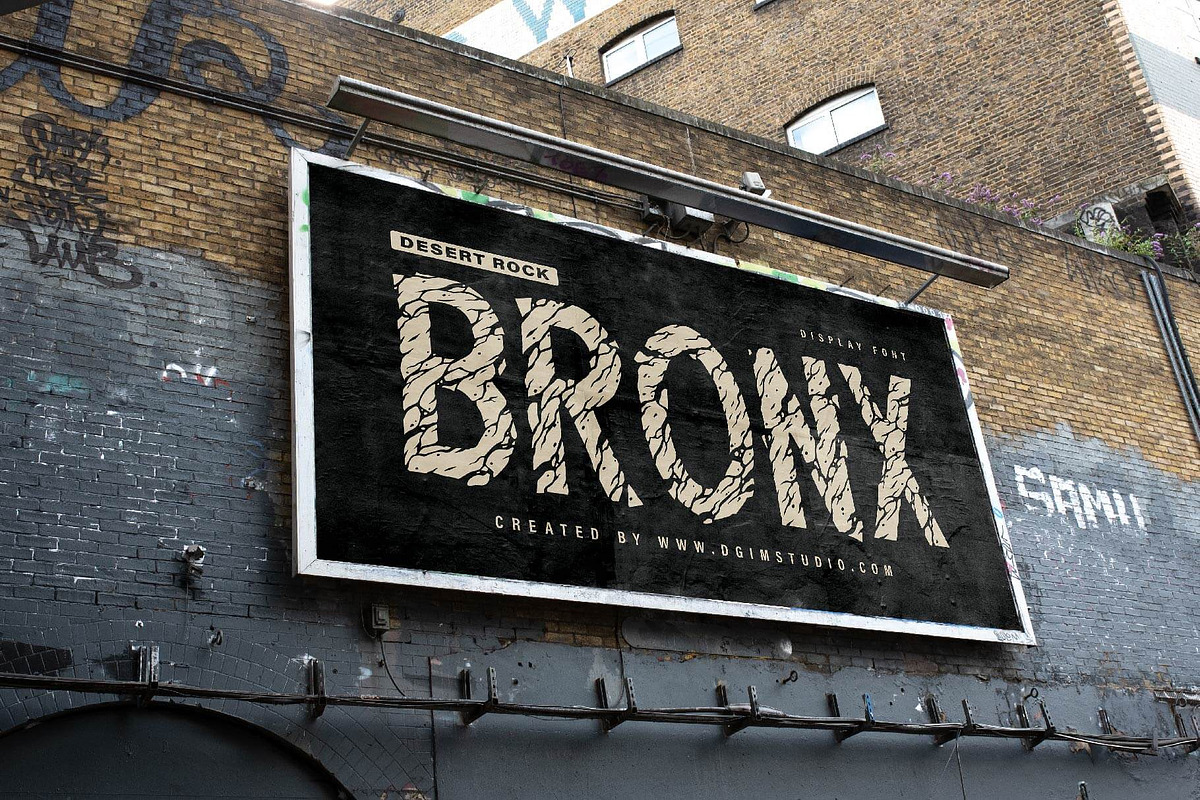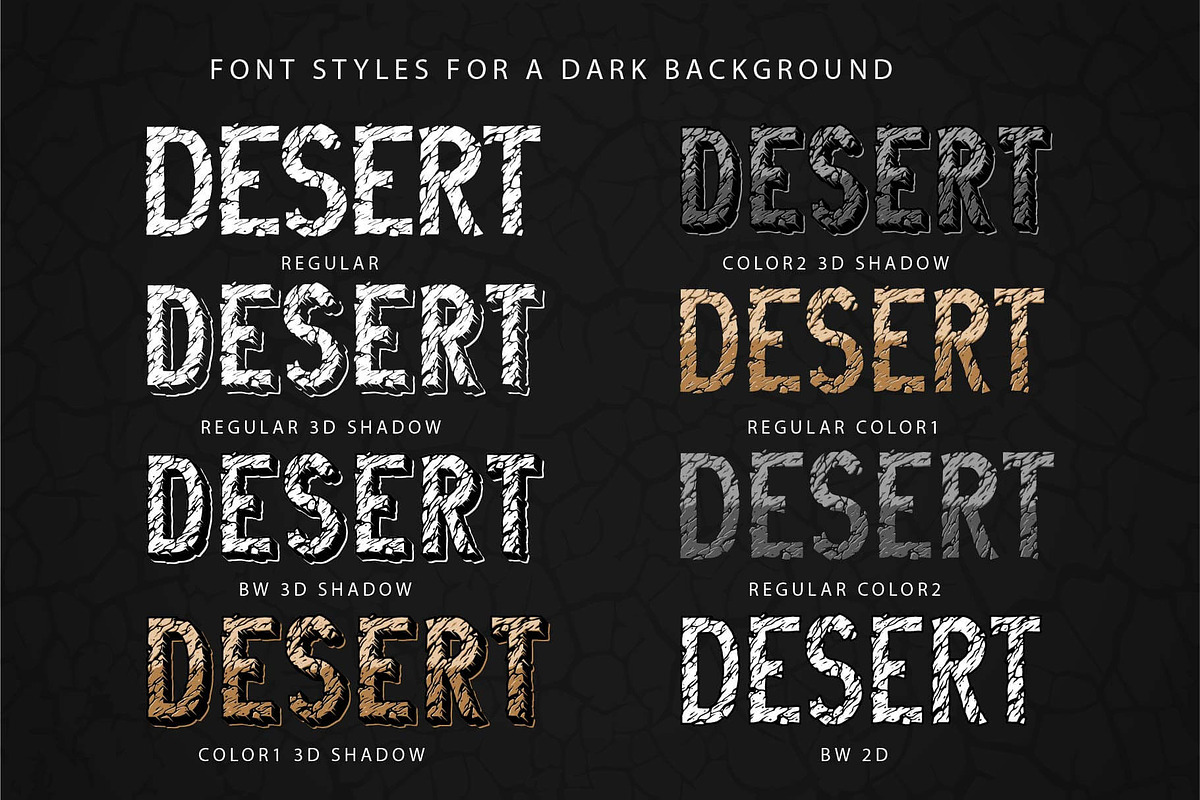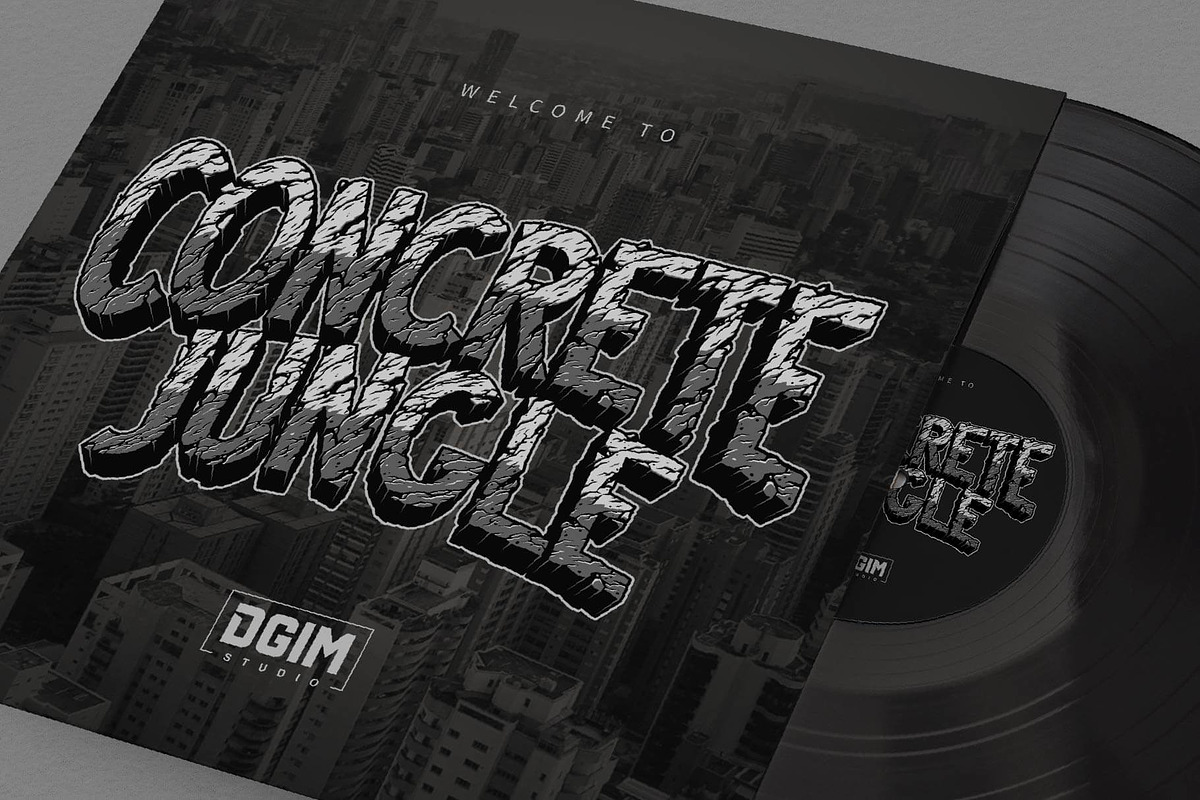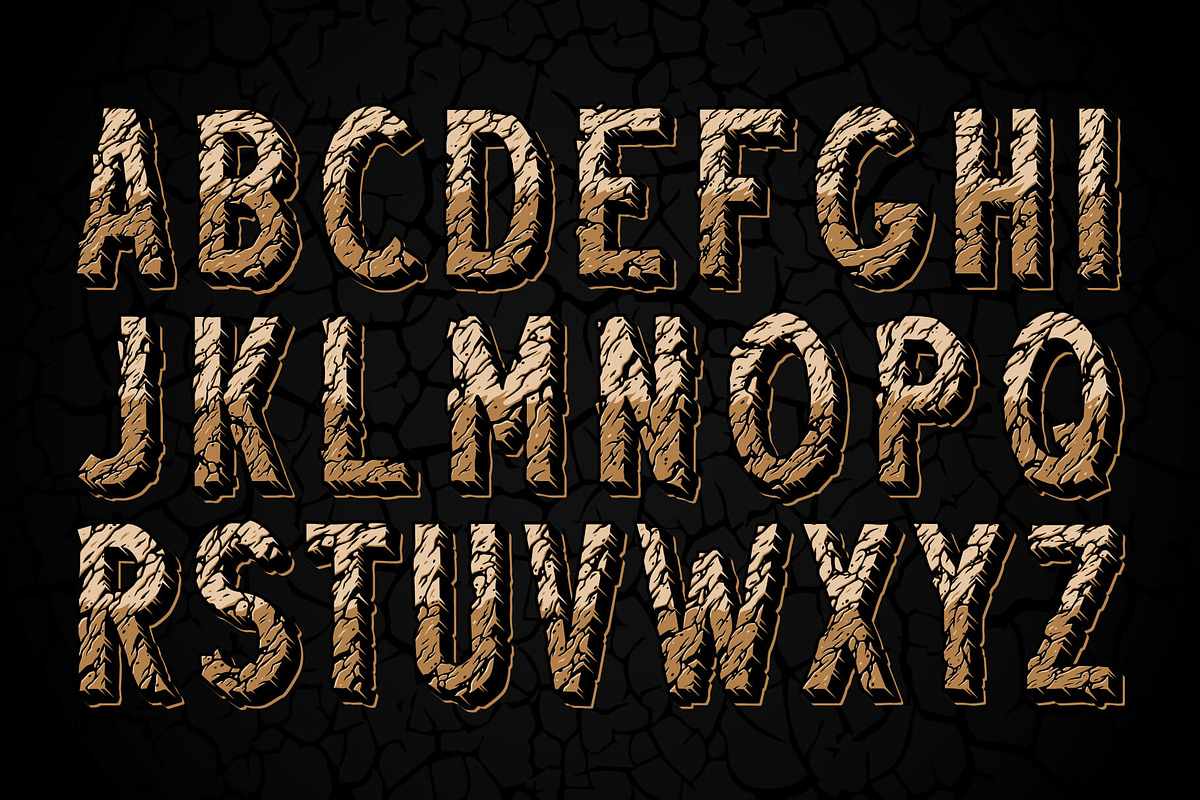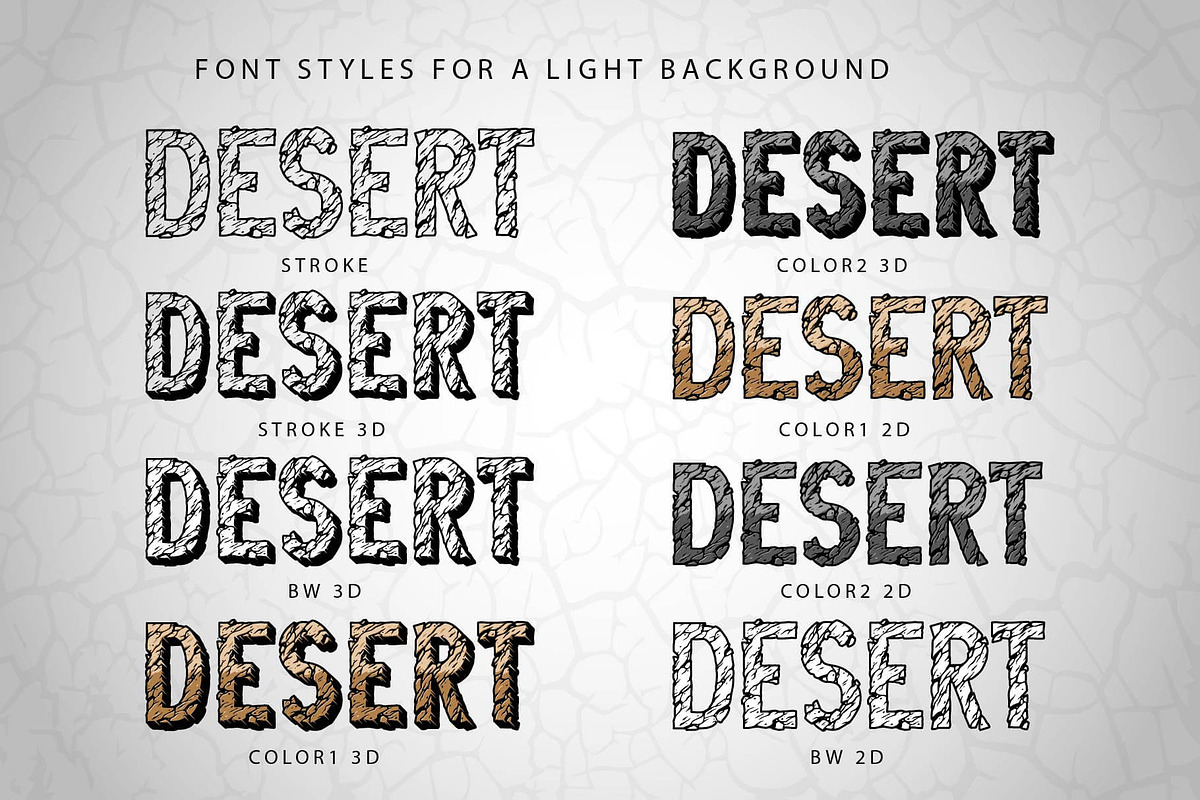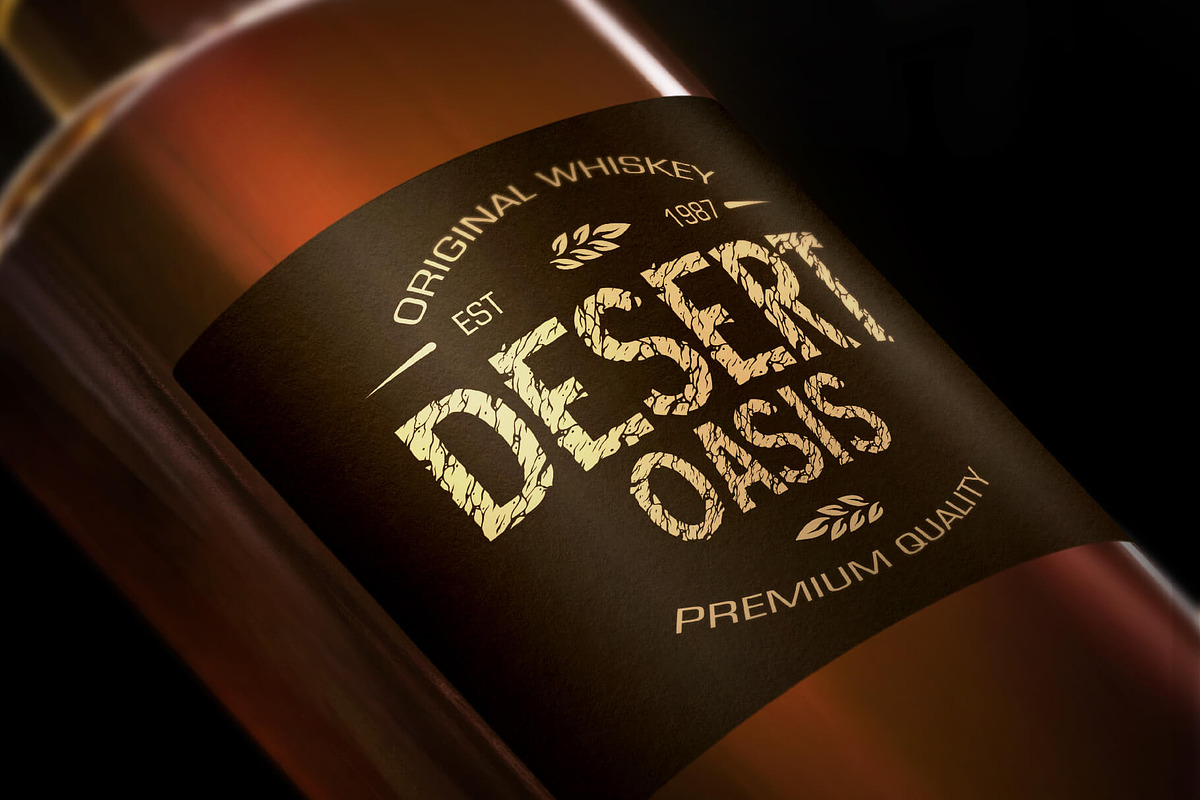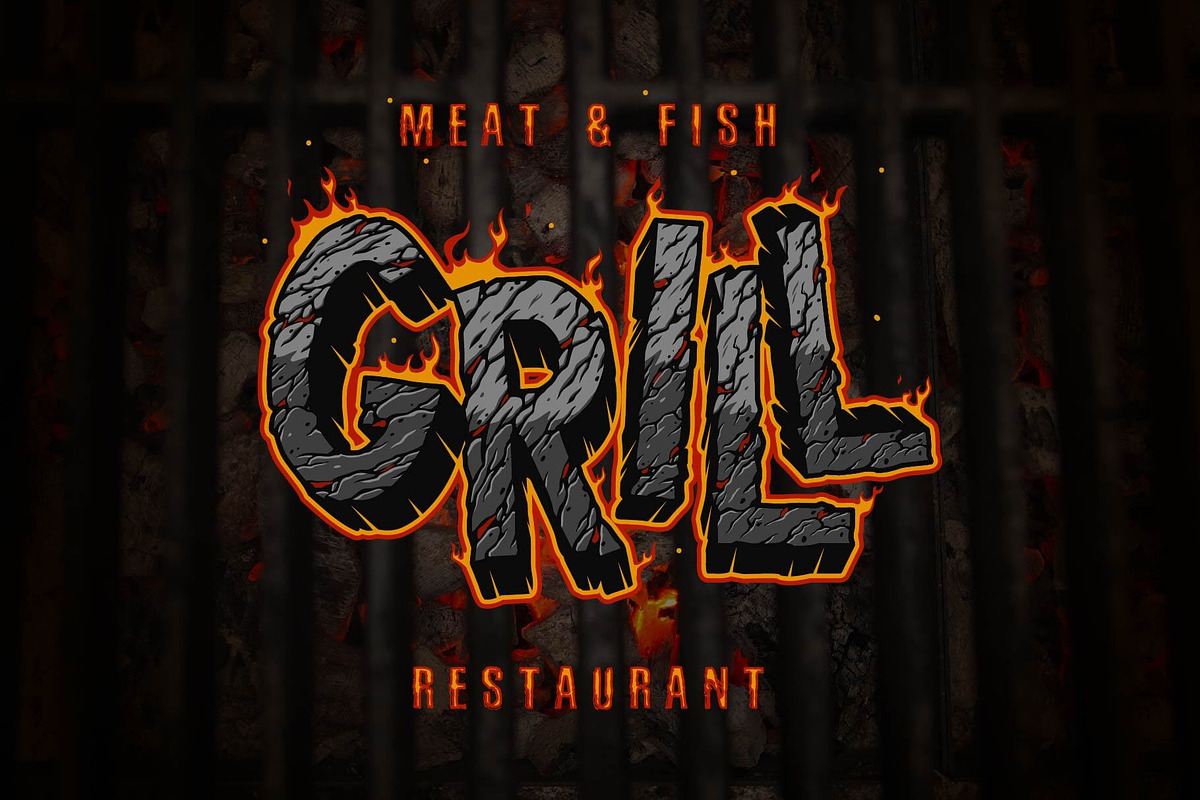
Desert Rock display font family
Desert Rock is a display font family inspired by the view of great rocks in Arizona deserts and The Grand Canyon (Colorado, US). It was created to imitate the texture of a damaged rock, stone, concrete, hot coal, ground, dry lake bottom and more. This font will be great for logos, illustration combinations, headlines, shop signs, billboards, posters, magazines, product designs, labels, badges, etc.
Desert Rock font family consist of 15 font styles for light and dark background:
STROKE - black contour without a fill for a light background (could be recolored);
STROKE 3D - black contour with 3D effect without a fill for light background (could be recolored);
BW 3D - black contour with 3D effect with a white fill for a light background;
COLOR1 3D - black contour with 3D effect with a 2 colors fill for a light background;
COLOR2 3D - black contour with 3D effect with another 2 colors fill for a light background;
COLOR1 2D - black contour with a 2 colors fill for a light background;
COLOR2 2D - black contour with another 2 colors fill for a light background;
BW 2D - black contour with a white fill for a light and dark background;
REGULAR - white fill without contour for a dark background (could be recolored);
REGULAR 3D SHADOW - white fill without contour with 3D effect and shadow for dark background (could be recolored);
BW 3D SHADOW - black contour with 3D effect, shadow, and white fill for a dark background;
COLOR1 3D SHADOW - black contour with 3D effect, shadow, and 2 colors fill for a dark background;
COLOR2 3D SHADOW - black contour with 3D effect, shadow, and another 2 colors fill for a dark background;
REGULAR COLOR1 - 2 colors fill without contour for a dark background;
REGULAR COLOR2 - another 2 colors fill without contour for a dark background.